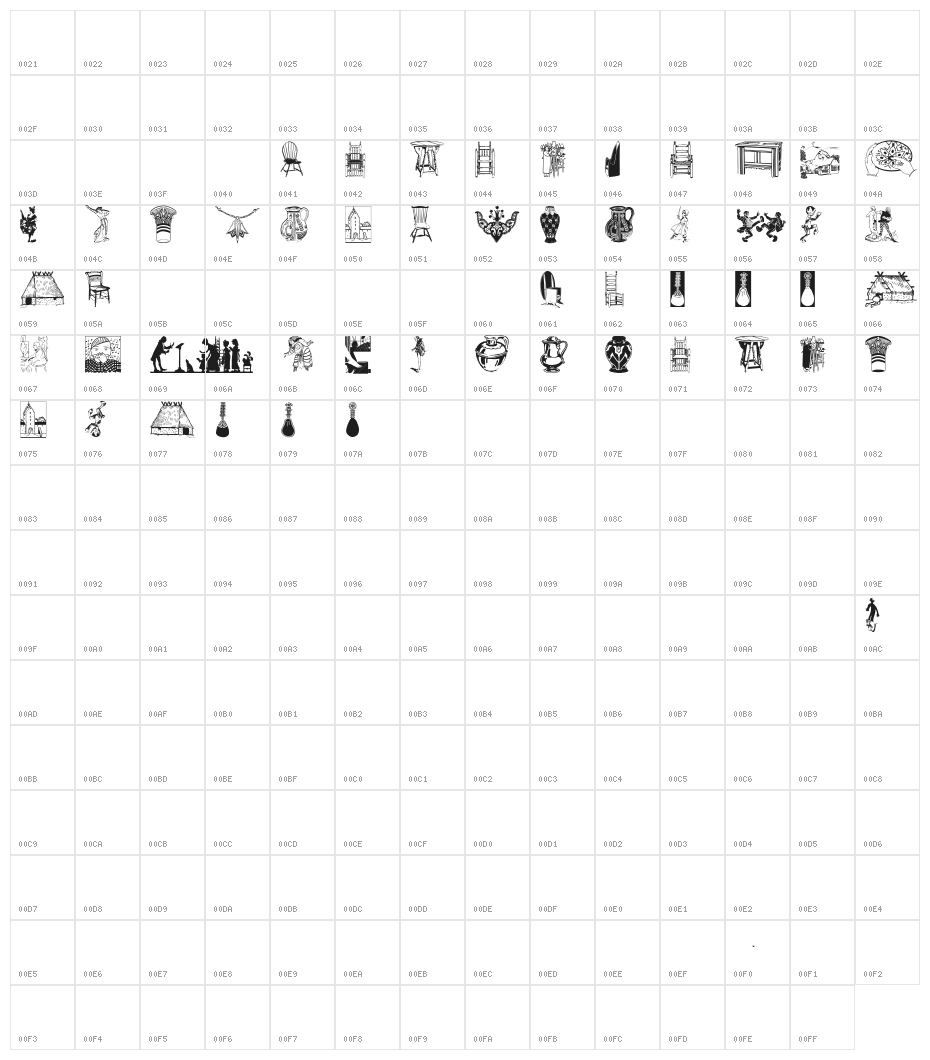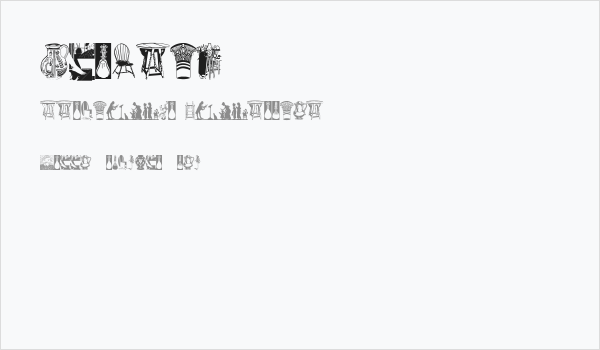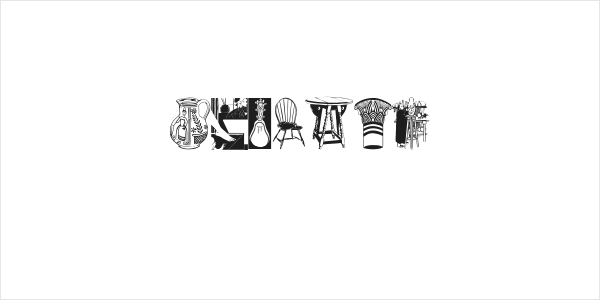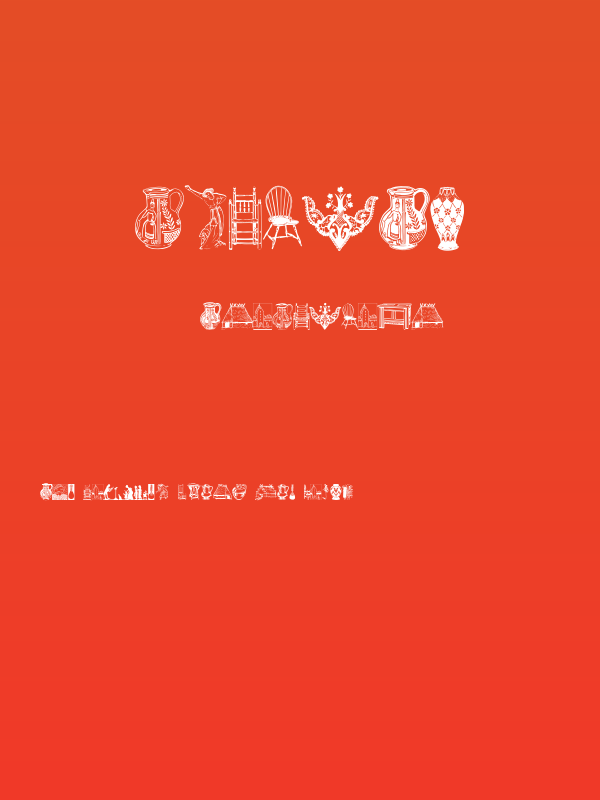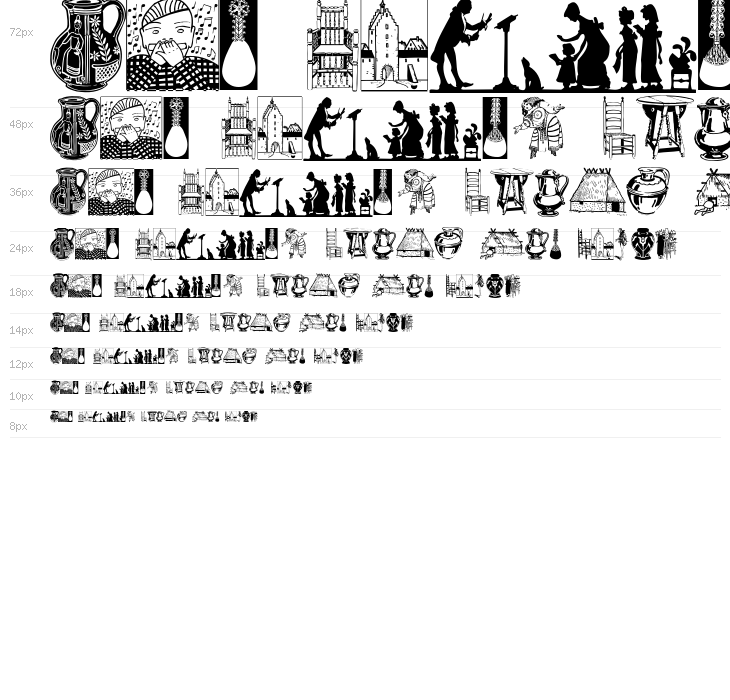
OldArts Font
OldArts Description
A highly decorative dingbat font featuring detailed black-and-white illustrations of traditional arts, crafts, pottery, furniture, architecture, and folk scenes. Each character is represented by a unique, intricate drawing rather than a standard letterform.
| Overall Style | Decorative, Vintage, Folk Art |
| Use Case | Illustrative accents, thematic dividers, visual storytelling, decorative initials. |
| Proposed Projects | Heritage event posters, museum brochures, educational materials, craft fair signage, historical presentations. |